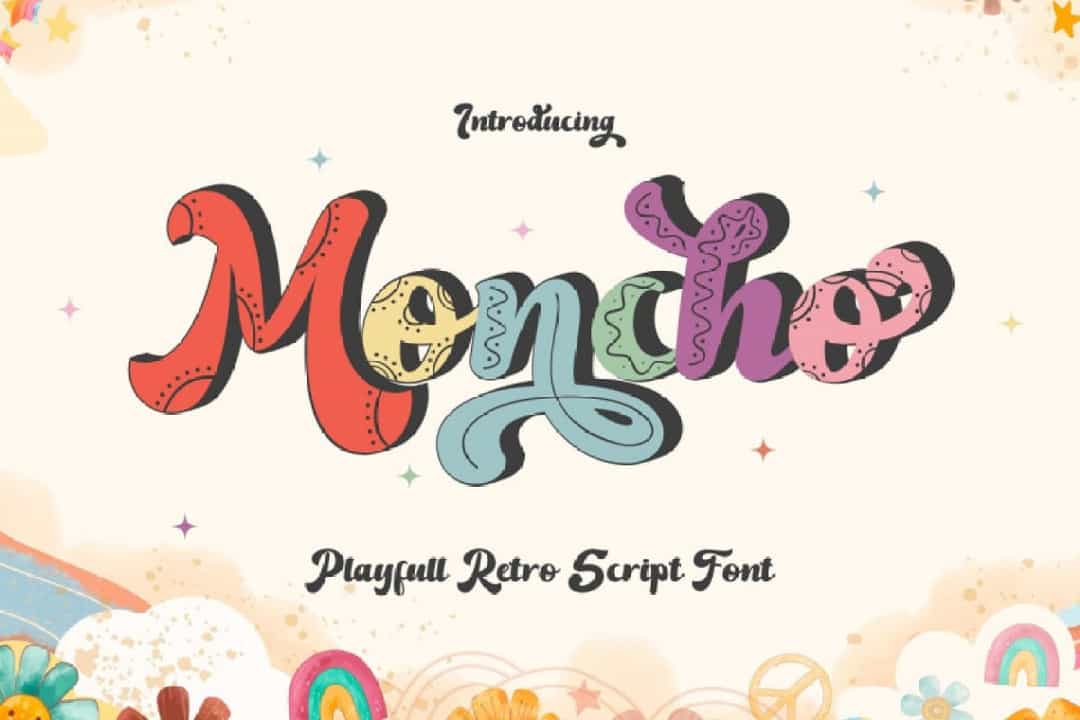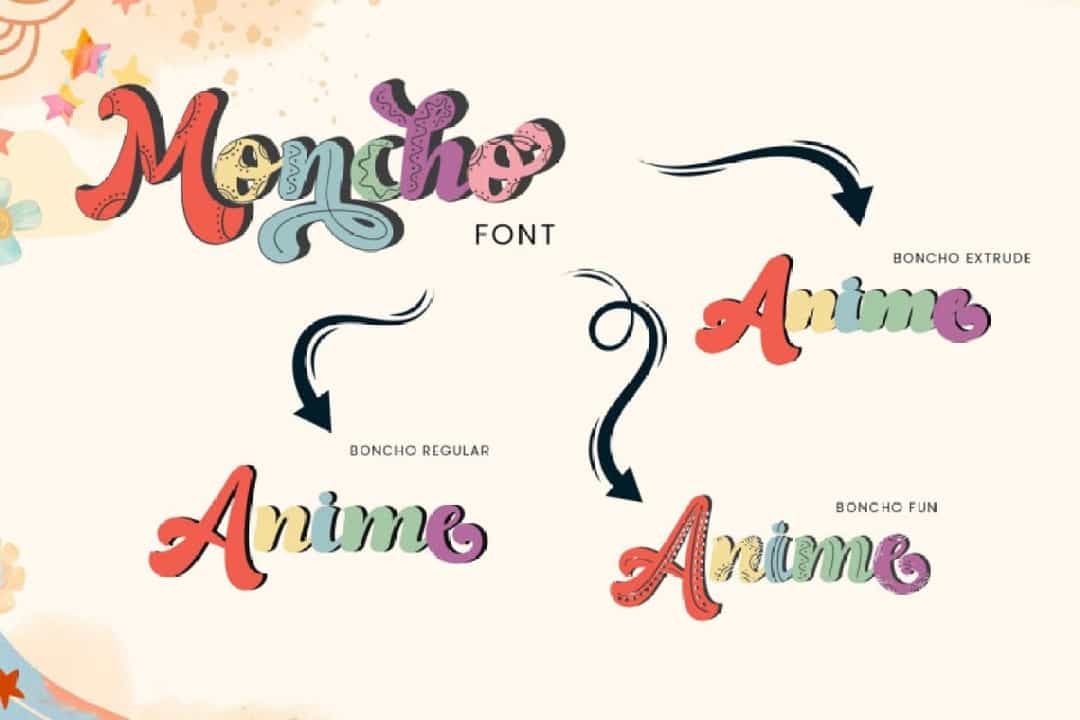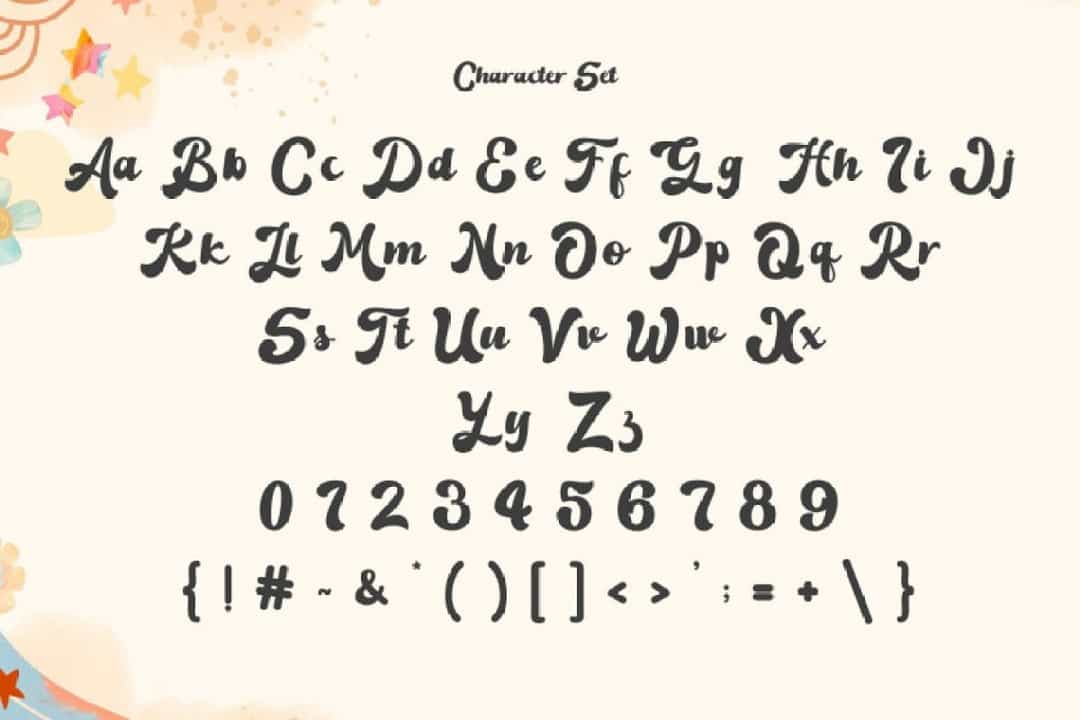
Moncho font is a new entry on the market. Moncho, a typeface that artfully blends whimsical script elements with vintage styling for a retro yet modern appearance. Rather than seeking attention for itself, this unique font takes your designs down an intimate path of storytelling with each letter telling its own tale.